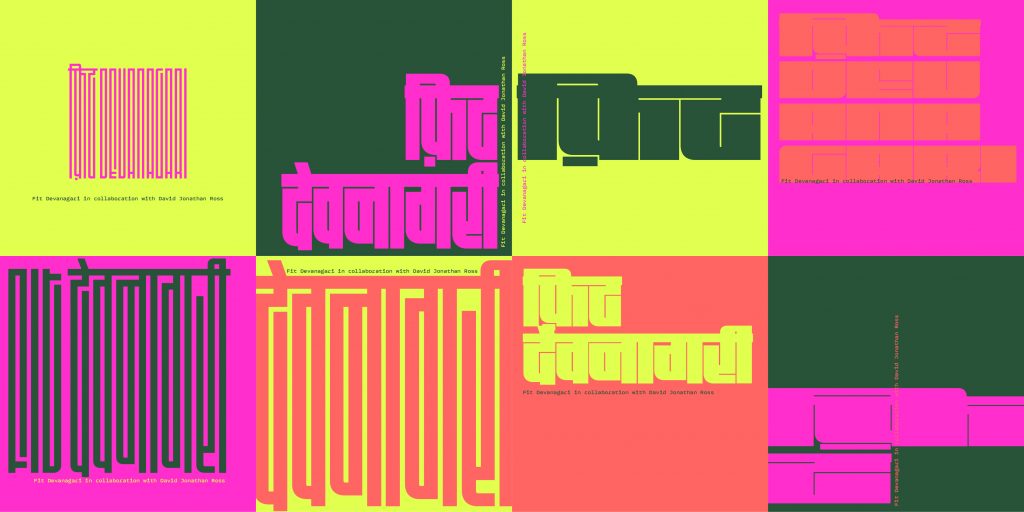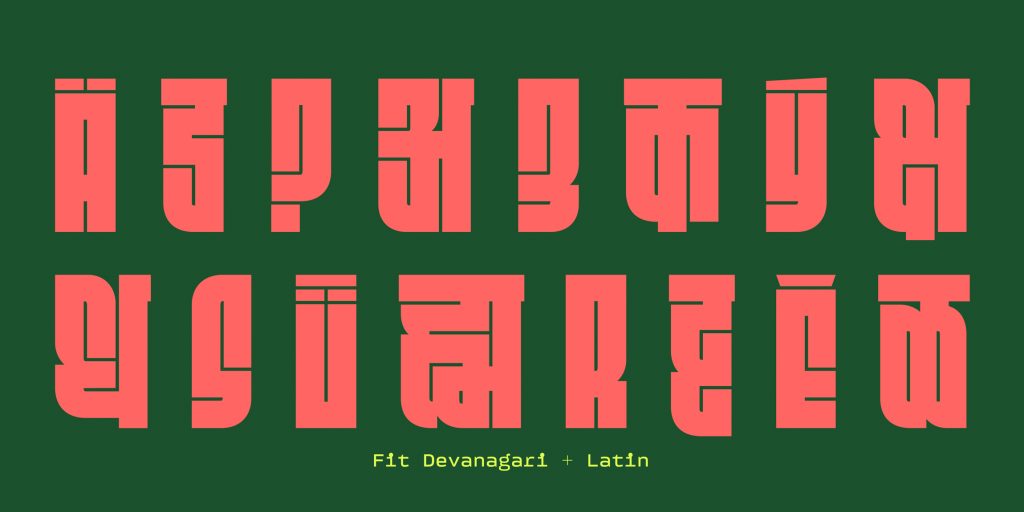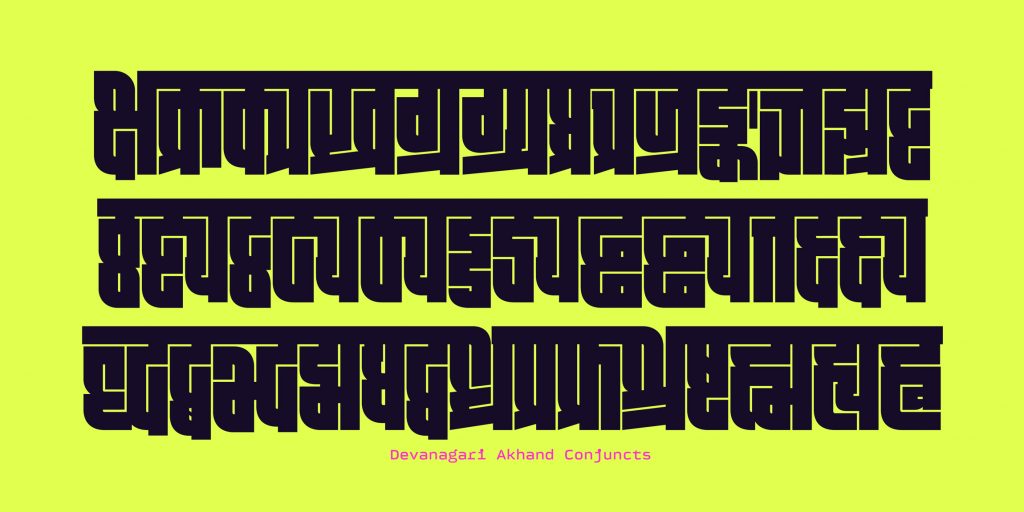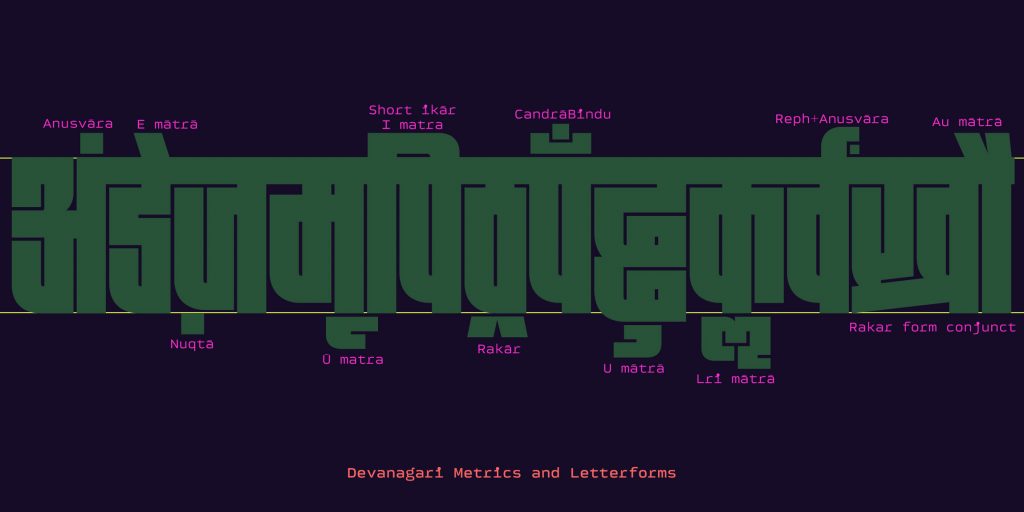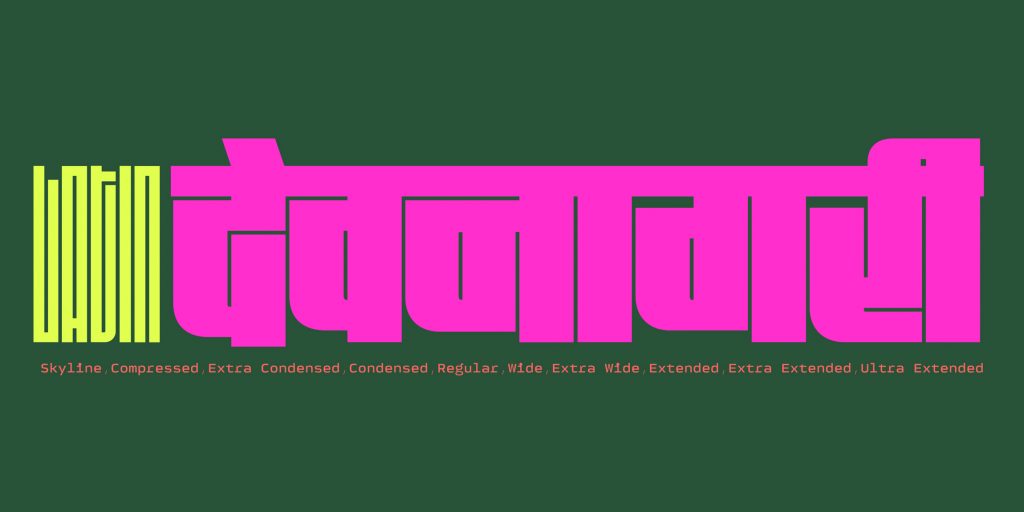
Name: Fit Devanagari
Designer: Latin: David Jonathan Ross; Devanagari: Kimya Gandhi
Foundry: DJR + Mota Italic
Release date: Latin 2017, Devanagari April 2022
Back Story: Until recently, finding a well-engineered, widely-available Devanagari typeface that also delivered a punch of personal style was an uphill battle; most of what was on the market was serviceable at best. The hyper-stylized variable letterforms of Fit Devanagari, created as companions to David Jonathan Ross’s Fit family, are the first of their kind in this language. Designed to stretch the possibilities of vernacular typography, they bring the cool to a previously sedate party.
Gandhi says, “As someone who grew up in India and studied in a conservative schooling system, I was quite a shy and conformist person. Even during the early design years, I heard the phrase ‘but this isn’t how it is done,’ and I wasn’t encouraged to ask why. When I started thinking about Fit Devanagari, the question wasn’t ‘why,’ it was ‘why not?’” As she collaborated on the alphabet with Ross, who doesn’t read Devanagari and was looking at the letterforms purely as shapes, the designers found solutions together that would have taken them far longer working as individuals.
Why’s it called Fit Devanagari? “Fit has one thing in mind: filling up space with maximum impact. Irrespective of the word length, whatever you type will ‘fit’ into any space,” says Gandhi.
What are its distinguishing characteristics? Fit Devanagari explores the letterform weight axis on an ambitious scale. The characters grow by 3600% (on average!) from the whisper-thin Skyline style to the colossal Ultra Extended, pushing the limits of legibility but opening up space for experimentation. The font contains over 200 conjunct characters formed by the combination of two or more consonants, each conjunct requiring semantic, physical, and phonetic integrity.
What should I use it for? This typeface is, to put it politely, not shy. While it may be unsuited for long-form reading or branding for a bank, Fit’s graphic shapes are dynamite for creating impactful posters, beer labels, book covers, and headlines.
What other typefaces do you like to pair it with? Let’s give the designer the final word. Gandhi says, “Fit is strikingly graphic but at the same time, radically simple. It’s a display font, but it has no ornamentation whatsoever. It matches pretty much nothing, but works with anything.”